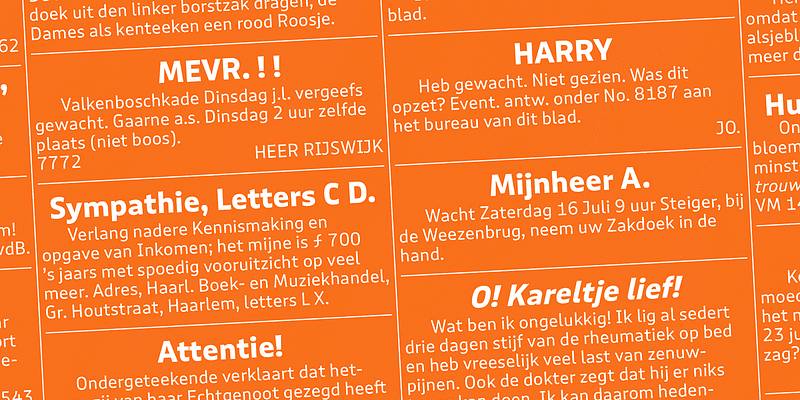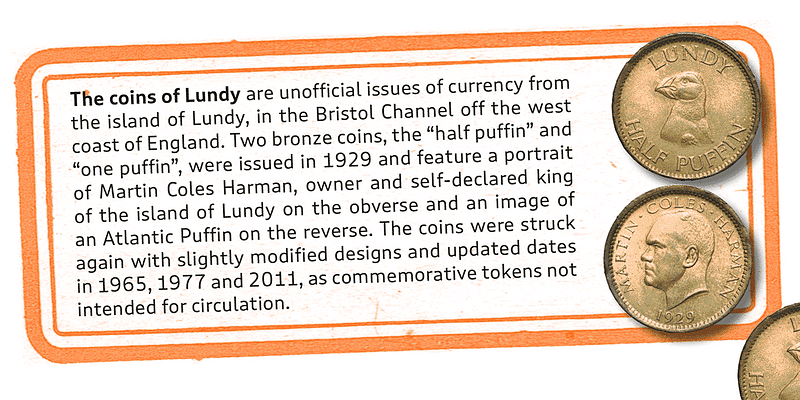
You may recall Pinup by Pieter van Rosmalen among the first Bold Monday releases. It was informal and friendly, but consisting of only one style. More than 10 years later, it has grown into two comprehensive type series: one very practical and still fun, one very fun and still quite practical: Puffin and Puffin Arcade. The extended “normal” family consists of Puffin, Puffin Display, and Puffin Display Soft, each available in seven weights plus italics. Plain Puffin is the most tame; a versatile humanist sans with generous spacing and pronouncedly oblique italics (15°) that is well-suited for on-screen reading and user interface design. Puffin Display and Puffin Display Soft, in comparison, are more flavorful: Distinctly curved letterforms, especially in the italics, and rounded terminals in Puffin Display Soft creates a comfortable first-name-familiarity with it. The Display styles have a taller x-height and slightly tighter spacing that fit all kinds of personable applications in medium to large font sizes. And for an extra dose of playfulness—be it in posters or video games—combine these with Puffin Arcade.